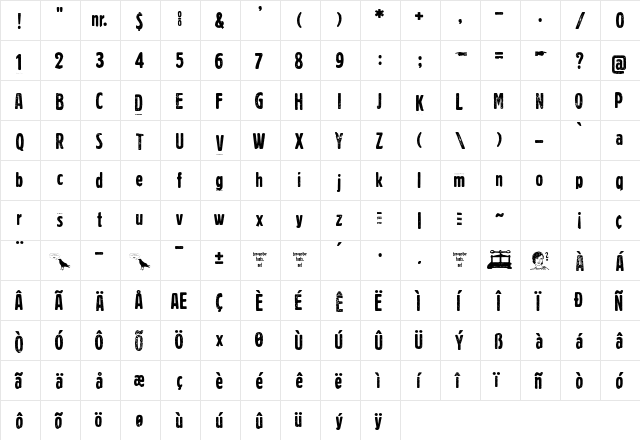
Volkszeitung 21 Regular
| Foundry | Lukas Krakora |
| Designer | Lukas Krakora |
Design Context for Volkszeitung 21 Typeface
Volkszeitung 21 takes a measured approach to typography — its balanced proportions and neutral character make it a reliable workhorse for both digital and print work.